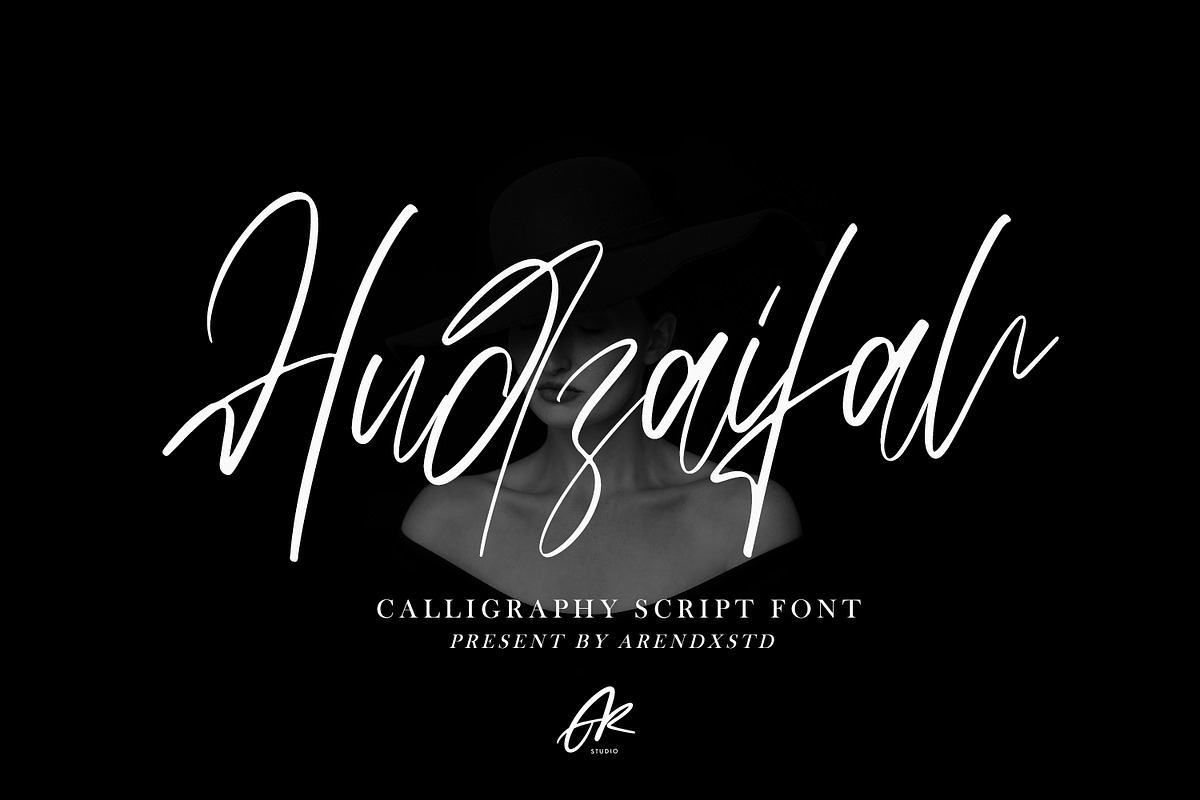
Hudzaifah - Modern Calligraphy Font Free Download
Hudzaifah - Modern Calligraphy Font Free Download is an elegant and sophisticated script typeface that combines modern calligraphy with artistic flair. With its smooth, flowing letterforms and refined curves, this font is perfect for creating luxury branding, wedding invitations, greeting cards, logos, and any project that requires a graceful, handwritten touch. The beauty and fluidity of this font make it ideal for projects that demand a premium, stylish look.
Using the Hudzaifah - Modern Calligraphy Font Free Download adds a touch of class and elegance to your typography. Whether you're designing a high-end logo, creating an elegant invitation, or crafting branded materials, this font gives your work a refined, timeless feel.